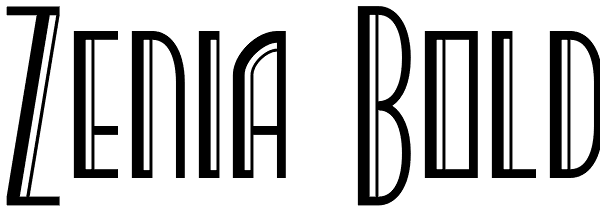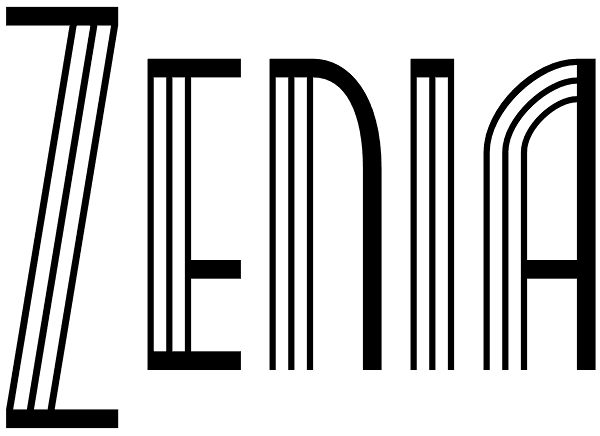
Zenia
Zenia, offered in regular and bold weights is a homage to the streamline era of the later 1930s. It's a distinctive display family, glyphic yet still intuitive and easy to read. Use it anywhere you want that 30's streamlined feel, or perhaps in...
Zenia Bold
Zenia